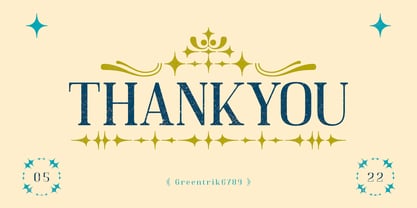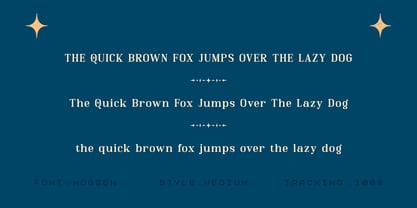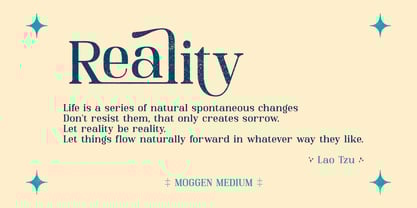
Moggen
by Greentrik6789
The Moggen Font Family was designed by Tri Kuncoro and published by Greentrik6789. Moggen contains 3 styles and family package options.
Moggen is a fonts of serif displays with high and beautiful contrast flows with a variety of alternative choices of characters that you can use according to your needs, also equipped with Swash Ornaments for vintage and luxurious views on your design.
This font is also equipped with a variety of character ligature that you can use for logos, labels, posters, advertisements, wedding invitations, cover, and various types of display designs.